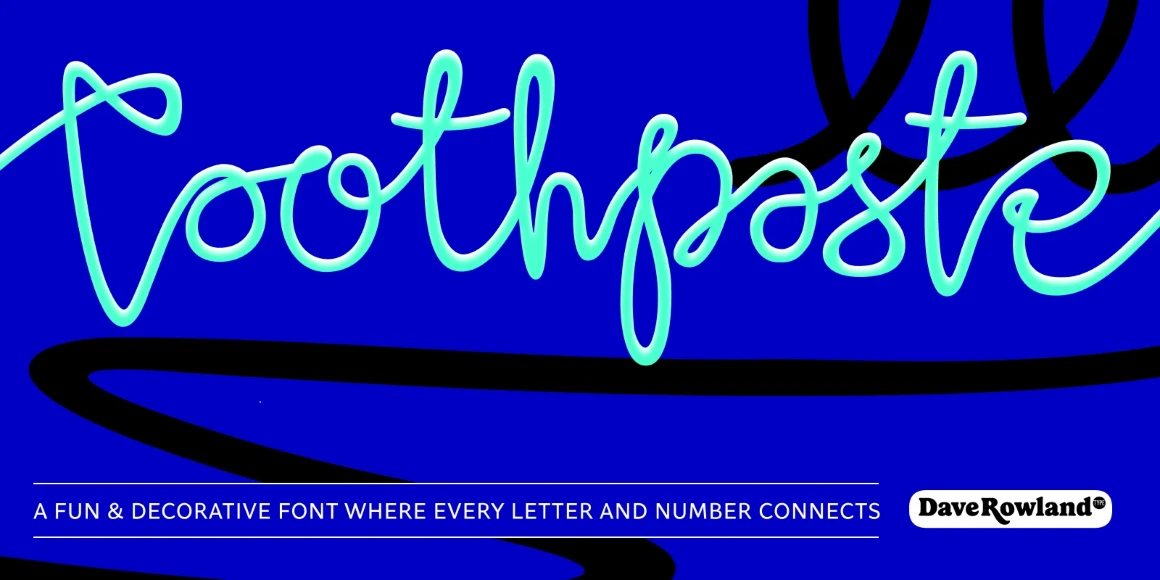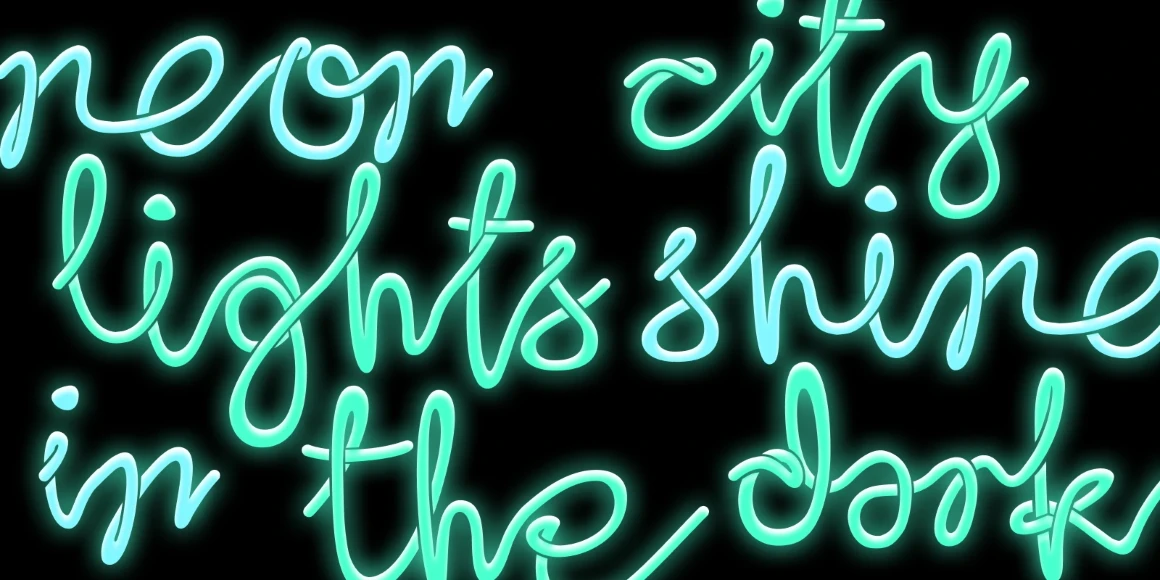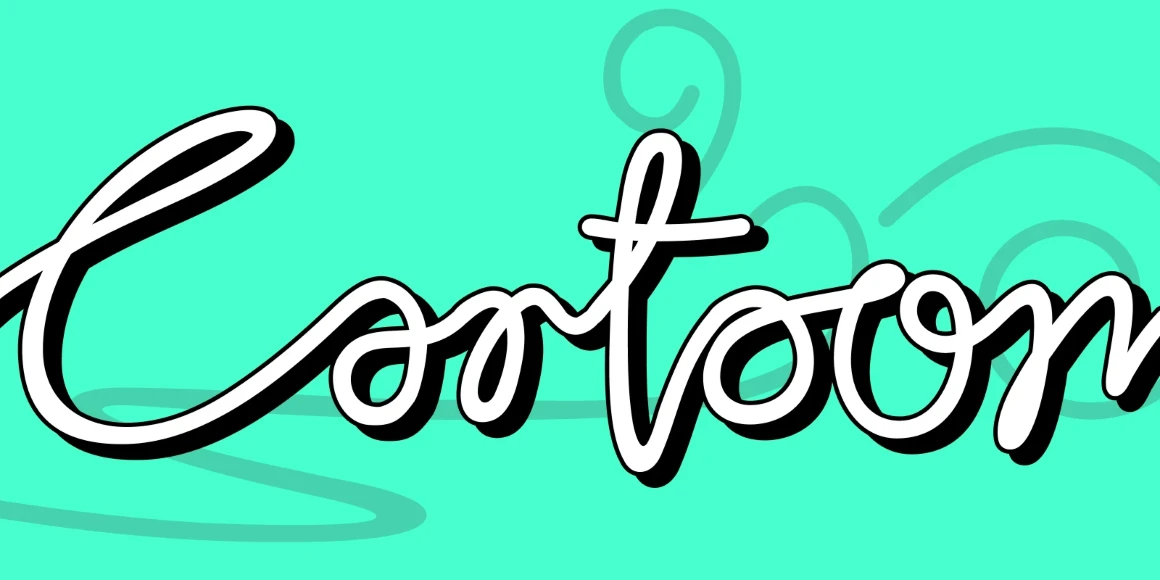
Toothpaste
By Dave Rowland
Toothpaste Two
Toothpaste Regular
Toothpaste is a decorative twisty script teetering trapezelike on the edge of legibility. Every letter and number connects, and numerous contextual alternates and ligatures keep it all running smoothly. Regular is a single continuous line, and Two shows the line twisting and turning over and under itself, adding depth. Toothpaste is ideal for fun websites, scrapbooks, and party invitations. Try it in brighter colors on darker backgrounds for a neon effect or with a stroke for something cartoony.